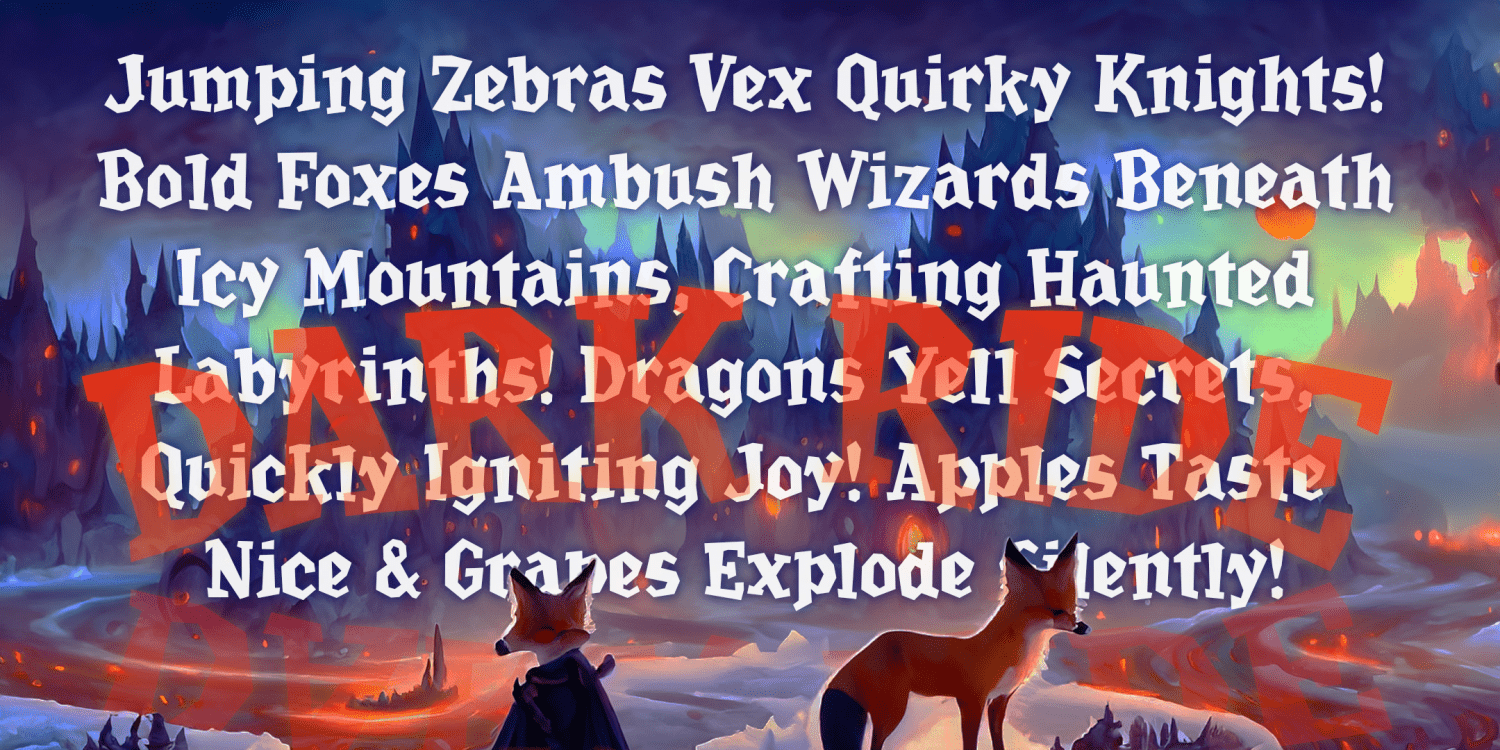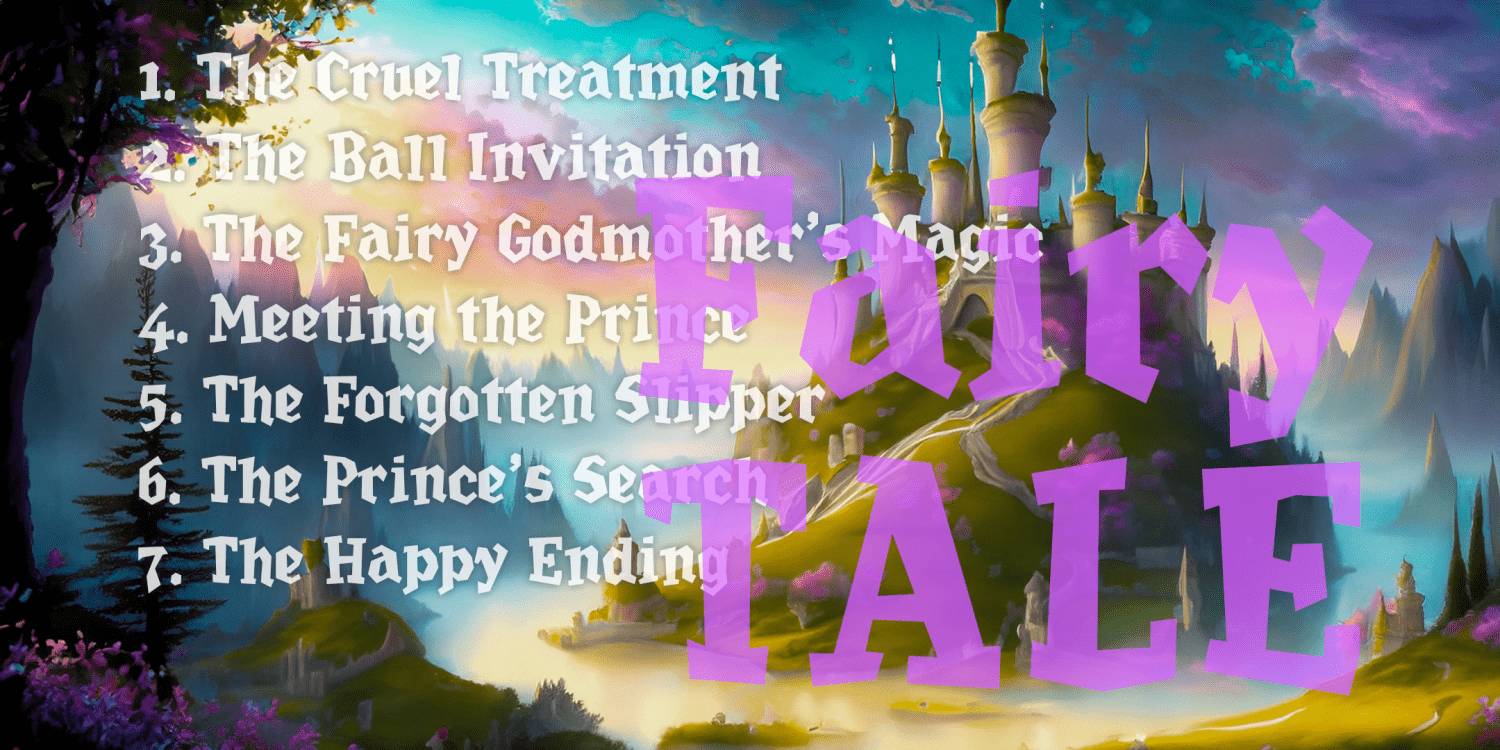
Dark Ride Regular
DARK RIDE has that playful/creepy character that is associated with Halloween and Grimm’s fairy tales. Mixing the formality of serifs with an irregular baseline line, DARK RIDE invites you along for a safe but unpredictable journey.
DARK RIDE was inspired by some hand lettering from 1930. In the process of designing the font, I changed a lot of things while attempting to retain its playful but complicated character.